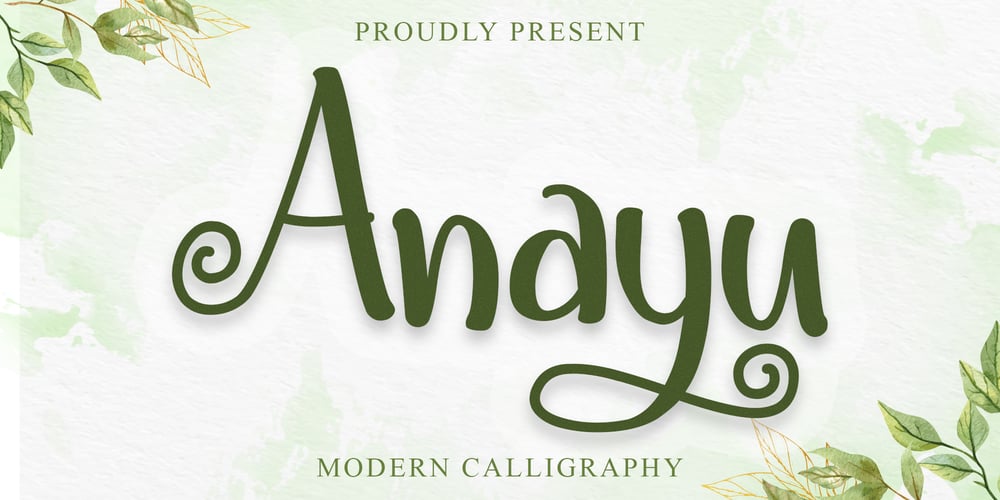
Anayu
Anayu font
Anayu Font Family was designed by Endri Sulistyawan and published by Rashatype. Anayu contains 1 styles and family package options. Anayu is an elegant, whimsical and uniquely shaped lettered handwritten font. This font is PUA encoded which means you can access all of the glyphs and swashes with ease! Add it confidently to your favorite creations and let yourself be amazed by the outcome generated.